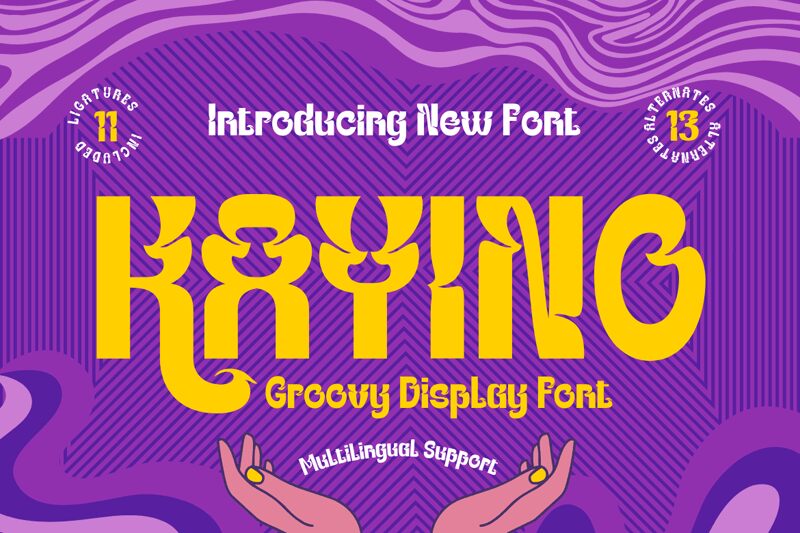
Kayino, designed by Twinletter, is a bold and semi-condensed display font with a groovy style that sets it apart from the rest. Its asymmetrical and intriguing character makes it perfect for projects that require a touch of enjoyment and nostalgia. Inspired by classical but modern music, Kayino exudes a psychedelic vibe with its vintage objects and brash pop art typography from the 1960s.
This font is ideal for creative projects such as posters, banners, music-related designs, branding, logos, and more. Its unique style adds a fun and captivating element to any design, making it stand out from the crowd. Whether you’re working on a retro-themed project or want to add a playful touch to your design, Kayino is the perfect choice to bring your creative vision to life.